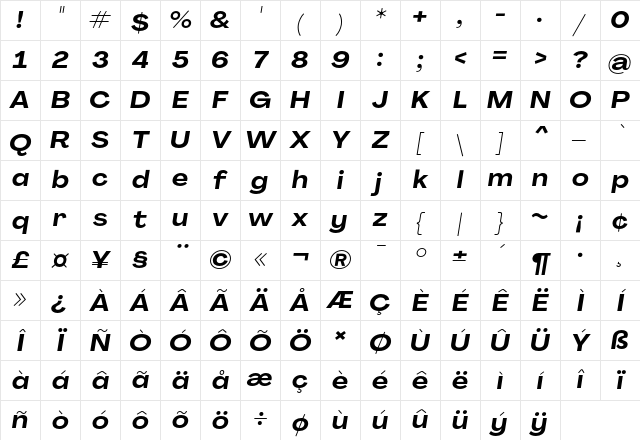
Agrandir Wide Bold Italic
Foundry: Alexander Slobzheninov
Designer: Alexander Slobzheninov
Design Context for Agrandir Wide
Agrandir Wide is a composed and adaptable typeface that performs quietly and consistently across a wide range of design contexts. The slanted form adds forward momentum and visual energy. Its bold stroke weight gives it real presence on the page.
Pro Tip: Use Agrandir Wide for emphasis, pull quotes, and subheadings where its slanted energy can add rhythm to the layout.